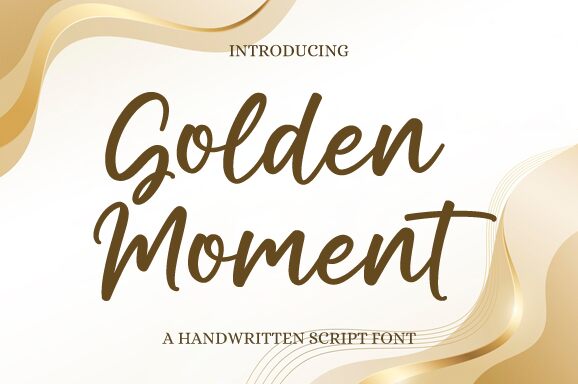
Golden Moment
Golden Moment emerges as a captivating handwritten font designed by Graphix Line Studio, embodying a semi-light weight that enhances its readability and elegance. With each stroke exuding a natural flow reminiscent of fine penmanship, this font brings a personal touch to any creative endeavor.
Its aesthetic charm lies in the balance between sophistication and casual grace, making Golden Moment truly versatile. Perfect for invitations, branding, or editorial design, it promises to add an intimate yet professional quality to your projects. Whether you're crafting heartfelt messages or setting the tone for storytelling, this font is poised to leave an indelible impression.